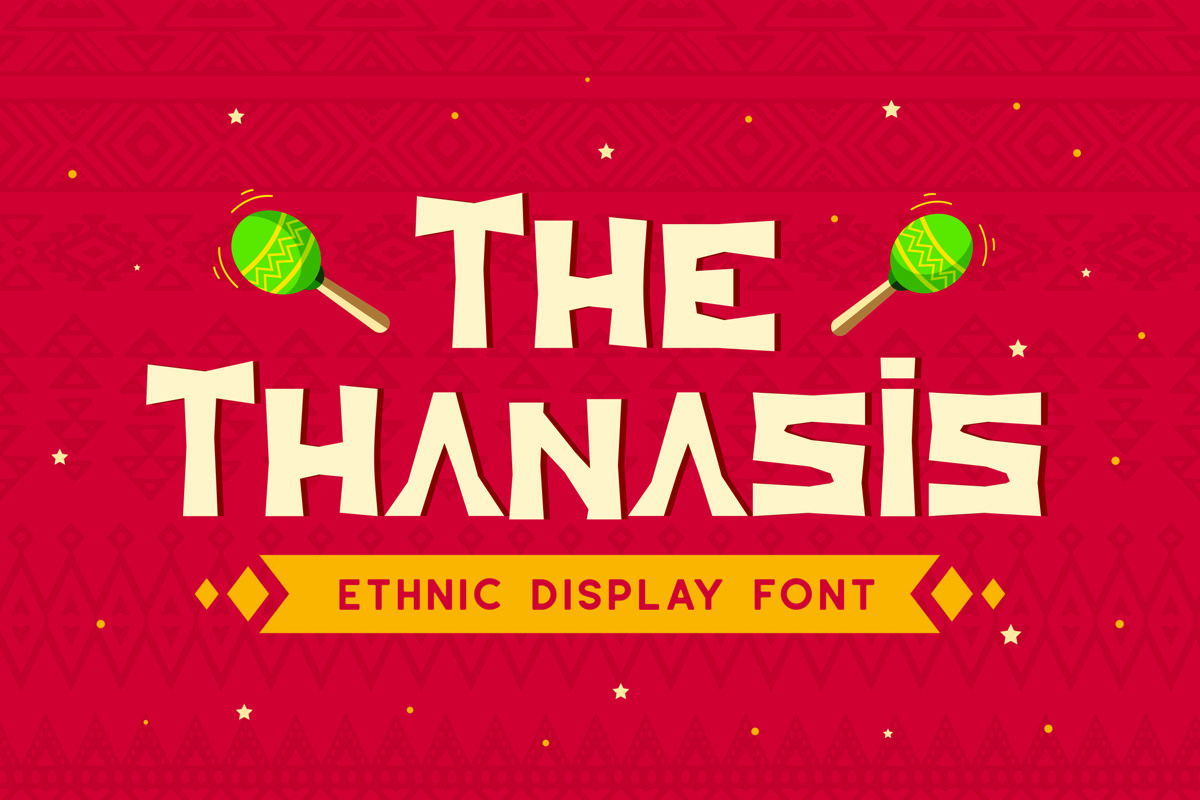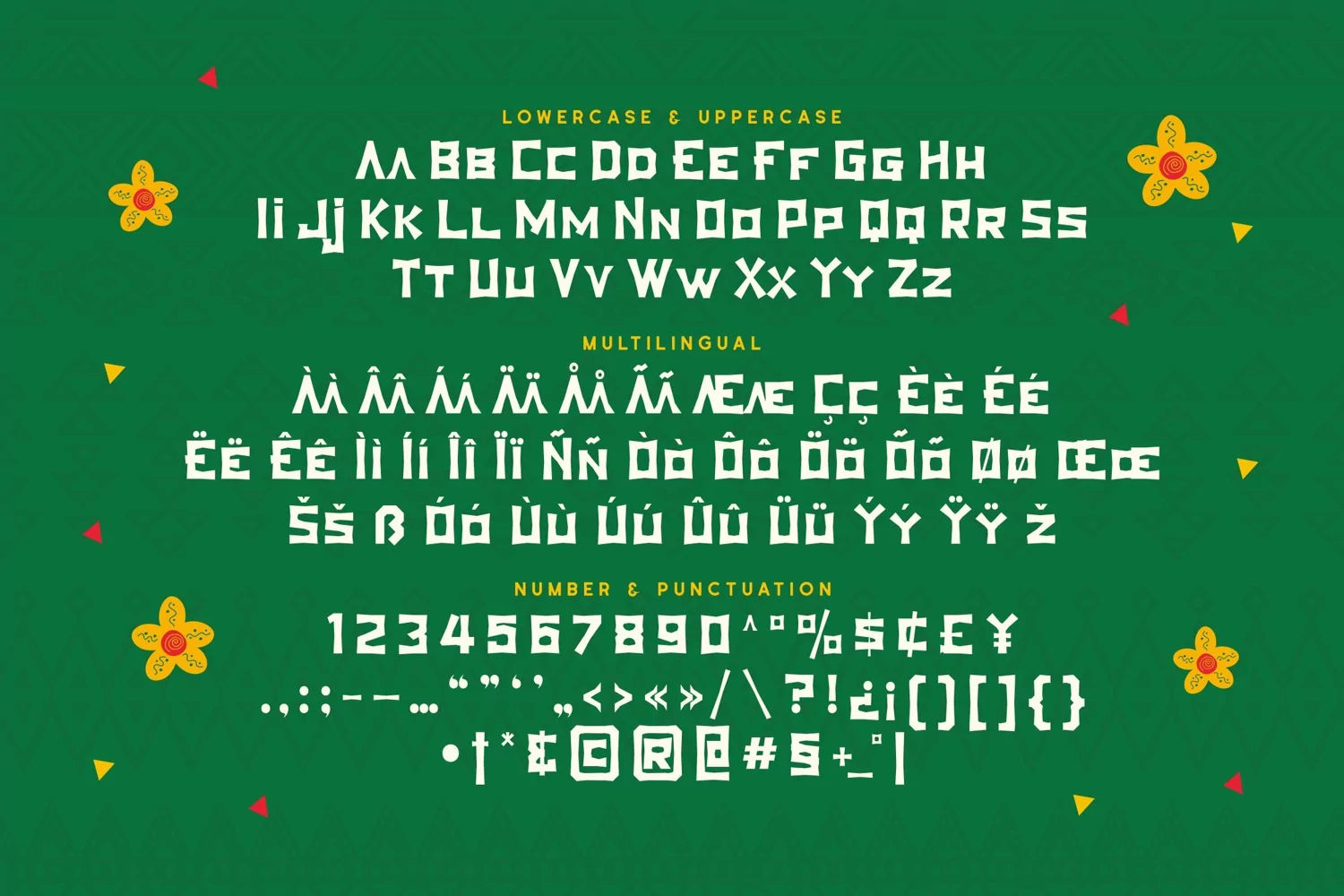
Thanasis is a powerful sans serif display typeface come with ethnic themes. It matches applies in some designs such as the logotype, brand, packaging, quotes, poster, shirt, cover book and more custom design. The features uppercase, lowercase, numeral, punctuation & symbol, multilingual support.